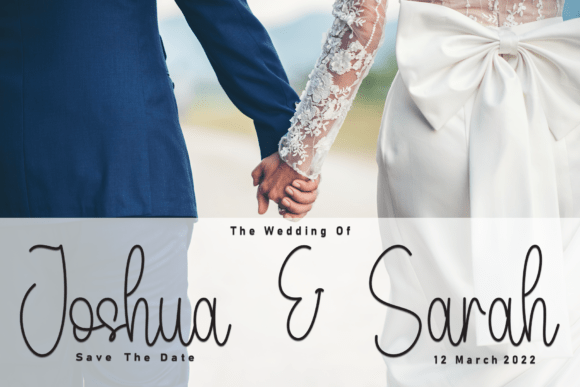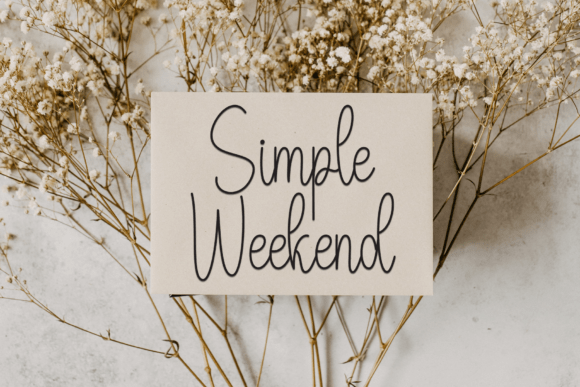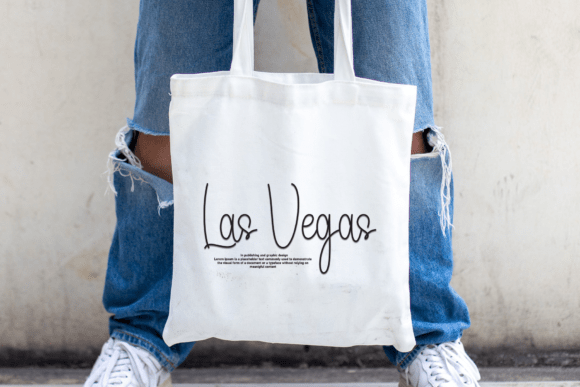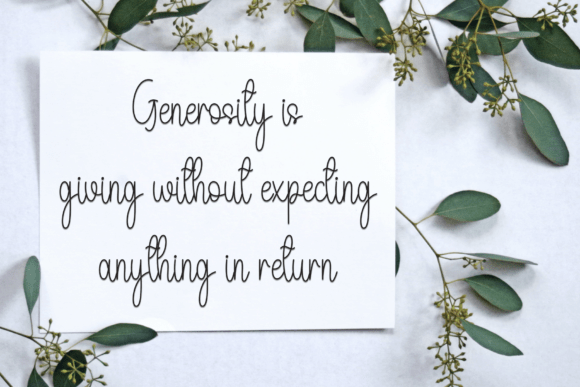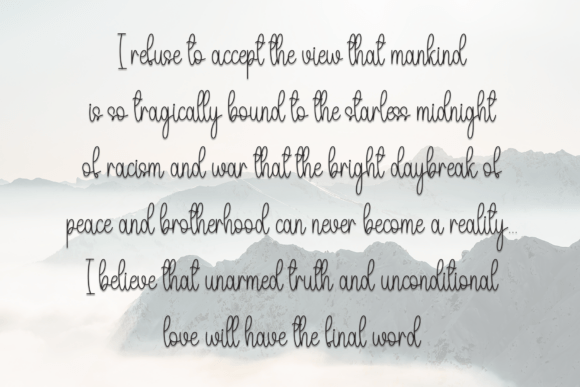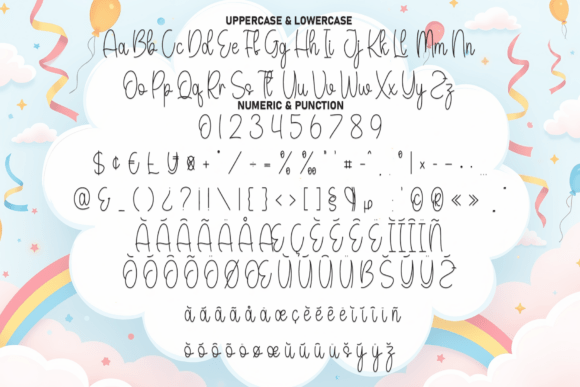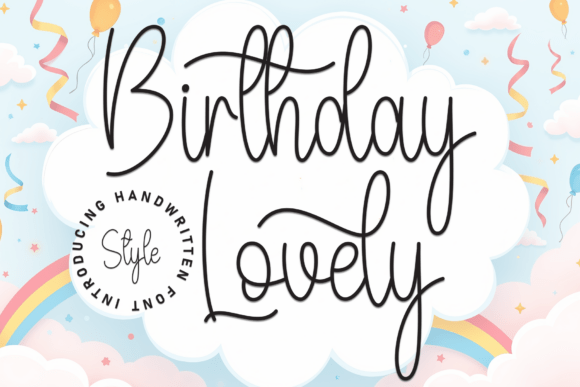
Birthday Lovely Font: The Perfect Addition to Your Design Collection
Are you tired of using the same old fonts in your designs? Look no further! Introducing the Birthday Lovely Font, a mesmerizing handwritten display font that is sure to add a touch of sweetness and friendly allure to your projects. This beautiful font is perfect for designers and crafters who want to create stunning wedding invitations, love-infused cards, and other designs that call for a splash of joy.
A Unique Blend of Playfulness and Sophistication
The Birthday Lovely Font is a meticulous creation that fuses a playful vibe with classy sophistication. Its unique blend of laid-back charm and elegance makes it the perfect choice for designers who want to add a personal touch to their projects. Whether you’re creating wedding invitations, greeting cards, or social media graphics, this font is sure to enhance your artistic quests and make your designs stand out.
Perfect for Wedding Invitations and Love-Infused Cards
The Birthday Lovely Font is specifically designed to add a touch of romance and whimsy to your wedding invitations and love-infused cards. Its captivating sweetness and friendly allure make it perfect for couples who want to express their love and commitment in a unique and creative way. With this font, you can create stunning wedding invitations that will leave a lasting impression on your guests.
Enhance Your Artistic Quests
The Birthday Lovely Font is not just a font, it’s a tool that can enhance your artistic quests and help you create stunning designs. Its powerful lovable appeal ensures that every creation is irresistibly engaging and visually appealing. Whether you’re a professional designer or a crafter, this font is sure to inspire you to create something beautiful and unique.
Key Features of the Birthday Lovely Font
- Mesmerizing handwritten display font: The Birthday Lovely Font is a beautifully crafted handwritten display font that is sure to add a touch of elegance and sophistication to your designs.
- Captivating sweetness and friendly allure: This font has a unique blend of sweetness and friendly allure that makes it perfect for wedding invitations, love-infused cards, and other designs that call for a splash of joy.
- Playful vibe and classy sophistication: The Birthday Lovely Font fuses a playful vibe with classy sophistication, making it perfect for designers who want to add a personal touch to their projects.
- Perfect for wedding invitations and love-infused cards: This font is specifically designed to add a touch of romance and whimsy to your wedding invitations and love-infused cards.
- Use it for headings and titles: The Birthday Lovely Font is perfect for headings and titles, as it adds a touch of elegance and sophistication to your designs.
- Experiment with different colors and textures: This font looks great in a variety of colors and textures, so don’t be afraid to experiment and find the perfect combination for your design.
- Pair it with other fonts: The Birthday Lovely Font pairs well with other fonts, so feel free to experiment with different font combinations to create a unique and visually appealing design.
The Birthday Lovely Font is a beautiful and unique font that is sure to add a touch of sweetness and friendly allure to your designs. Its captivating sweetness and friendly allure make it perfect for wedding invitations, love-infused cards, and other designs that call for a splash of joy. With its playful vibe and classy sophistication, this font is sure to enhance your artistic quests and help you create stunning designs. So why wait? Download the Birthday Lovely Font today and start creating something beautiful and unique!